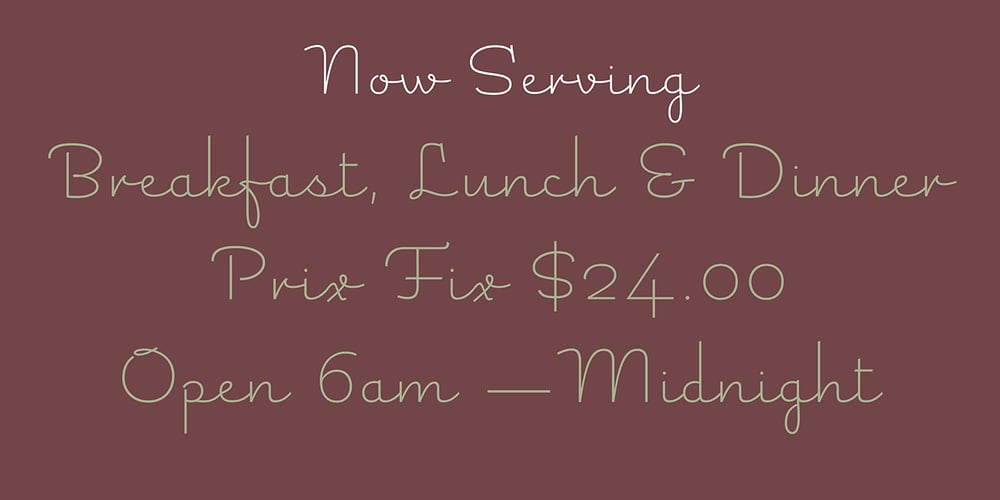
Sweet Nancy Font Family was designed by Steve Matteson and published by Matteson Typographics. Sweet Nancy contains 5 styles and family package options. Sweet Nancy is a monoline connected script typeface with a nostalgic, yet modern feel. Elegant cues inspired by Art Deco combine with a modern lettering style for lovely invitations, announcements, logos, book jackets and menus. Enjoy Sweet Nancy’s flowing lines in whimsical, romantic or fantastical designs.